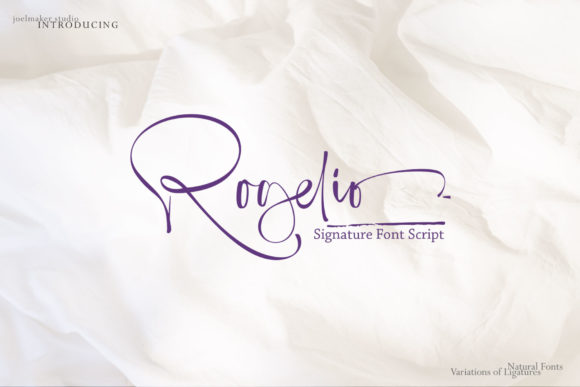
Rogelio Script: A Handwritten Font with Universal Appeal
Rogelio Script is a handwritten font that brings warmth and personality to any design. Its flowing, organic curves mimic the natural rhythm of human handwriting, making it feel personal and approachable. Whether you're crafting a greeting card, designing a logo, or creating social media graphics, this font adds a touch of elegance and authenticity.
What Makes Rogelio Script Unique?
Rogelio Script stands out for its clean, elegant strokes and soft, fluid lines. It's a handwritten font that feels both modern and timeless. The font has a versatile style, blending the charm of traditional script fonts with the clarity needed for digital use. Each letter is carefully crafted to maintain readability while preserving the hand-drawn aesthetic.
One of the key features of Rogelio Script is its PUA encoding. This means designers can easily access all the special glyphs and swashes without needing additional tools or software. Itβs a practical feature that enhances the font's usability across various platforms and design applications.
Visual Characteristics and Style
The visual characteristics of Rogelio Script are defined by its organic flow and subtle variations in stroke width. Unlike more rigid serif fonts, this script font feels more like a personal note from a friend. The letters have a gentle slant and soft connections, which contribute to its inviting and friendly appearance.
This font is ideal for projects that require a sense of intimacy and creativity. It works well in editorial design, packaging design, and web design, where a touch of personality can make a big difference. Its versatility allows it to be used as a display font or even as a base for more structured typography when paired with complementary typefaces.
Where Rogelio Script Shines in Design Projects
Rogelio Script is not just limited to one type of project. Its wide range of applications makes it a valuable asset for creative professionals. From branding to marketing materials, this font can elevate your work in meaningful ways.
- Greeting Cards: The fontβs handwritten feel is perfect for personal messages, invitations, and thank-you notes.
- Logos and Branding: When used sparingly, Rogelio Script can add a unique character to a brand identity without compromising professionalism.
- Social Media Graphics: It adds a personal touch to posts, captions, and promotional visuals, helping to build stronger audience connections.
- Web Design: As a display font, it can be used for headlines, call-to-action buttons, or accent text on websites.
- Print Materials: Brochures, flyers, and packaging benefit from the font's ability to create visual interest and emotional appeal.
Its adaptability also makes it suitable for creative font experimentation, allowing designers to explore different styles and pairings. However, it's important to consider readability when using it in larger blocks of text. For body copy, pairing it with a more structured sans serif font often yields the best results.
Design Considerations and Practical Tips
When choosing Rogelio Script for a project, start by evaluating how well it aligns with your overall design goals. Ask yourself: Does this font support the tone and message I want to convey? Will it enhance the user experience or distract from it?
Testing font pairing is essential. Try combining Rogelio Script with a clean sans serif or serif font to create contrast and balance. For example, pairing it with Helvetica or Georgia can provide a nice contrast between the organic and structured elements of your design.
Also, consider the readability of the font. While it's beautiful, it may not be the best choice for long paragraphs of text. Instead, reserve it for headings, subheadings, or short phrases where its visual impact can shine without overwhelming the reader.
Enhancing Brand Perception and Audience Engagement
The right font can significantly influence how your brand is perceived. Rogelio Script, with its warm and approachable look, helps create a sense of trust and connection. Itβs particularly effective in industries that value personalization and customer relationships, such as lifestyle, wellness, and creative services.
Using this font in your brand identity can help differentiate your business from competitors and make your messaging more memorable. It also contributes to visual hierarchy by drawing attention to key elements like headlines and calls to action.
For content creators and bloggers, incorporating Rogelio Script into headers or featured images can increase engagement and encourage readers to spend more time on your content. It adds a layer of visual storytelling that complements your written words.
In summary, Rogelio Script is more than just a decorative fontβit's a powerful tool that can enhance your design work, improve brand perception, and engage your audience in meaningful ways. Its versatility, readability, and emotional appeal make it a must-have for any designer or creative professional looking to add a personal touch to their projects.